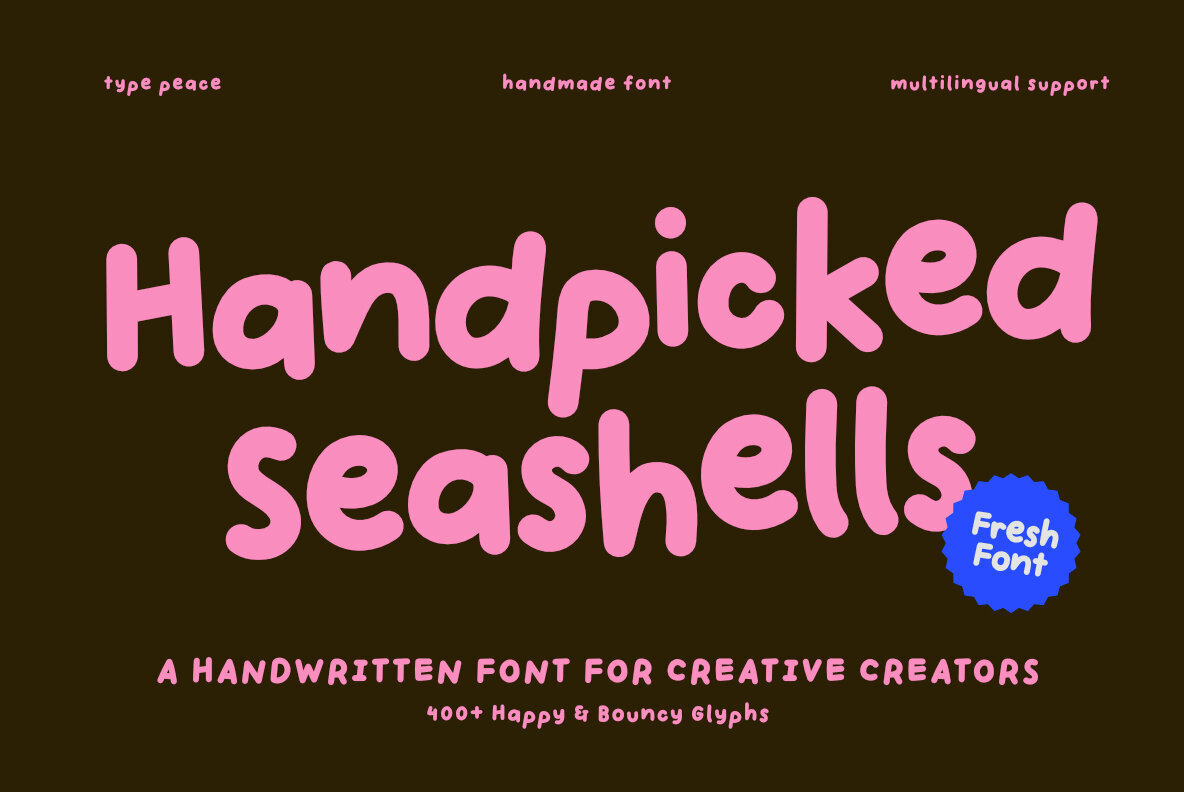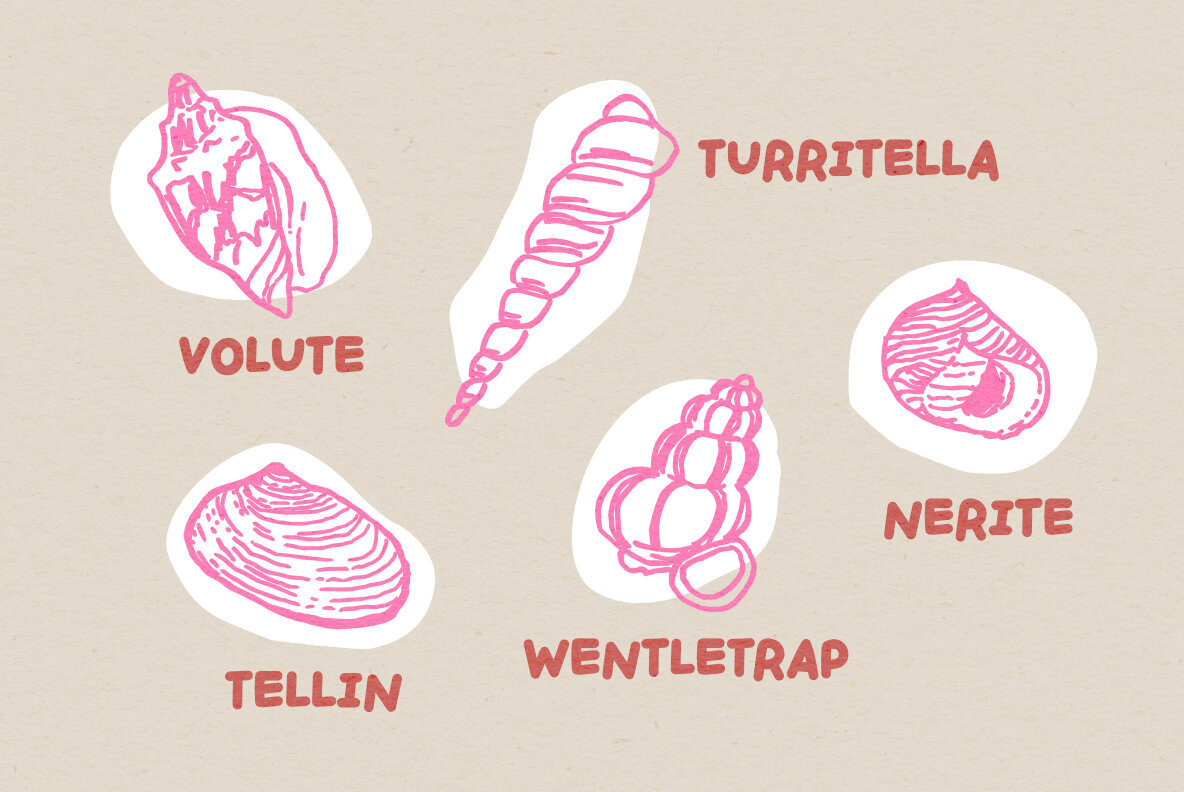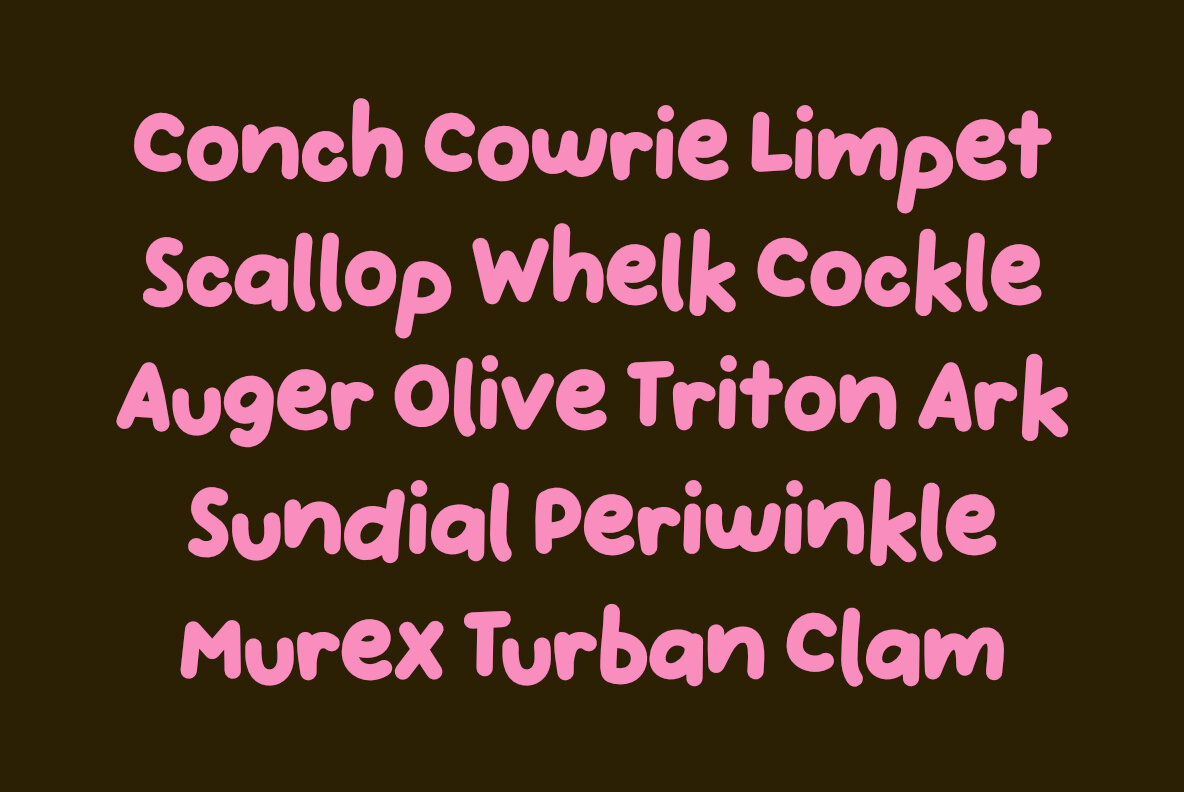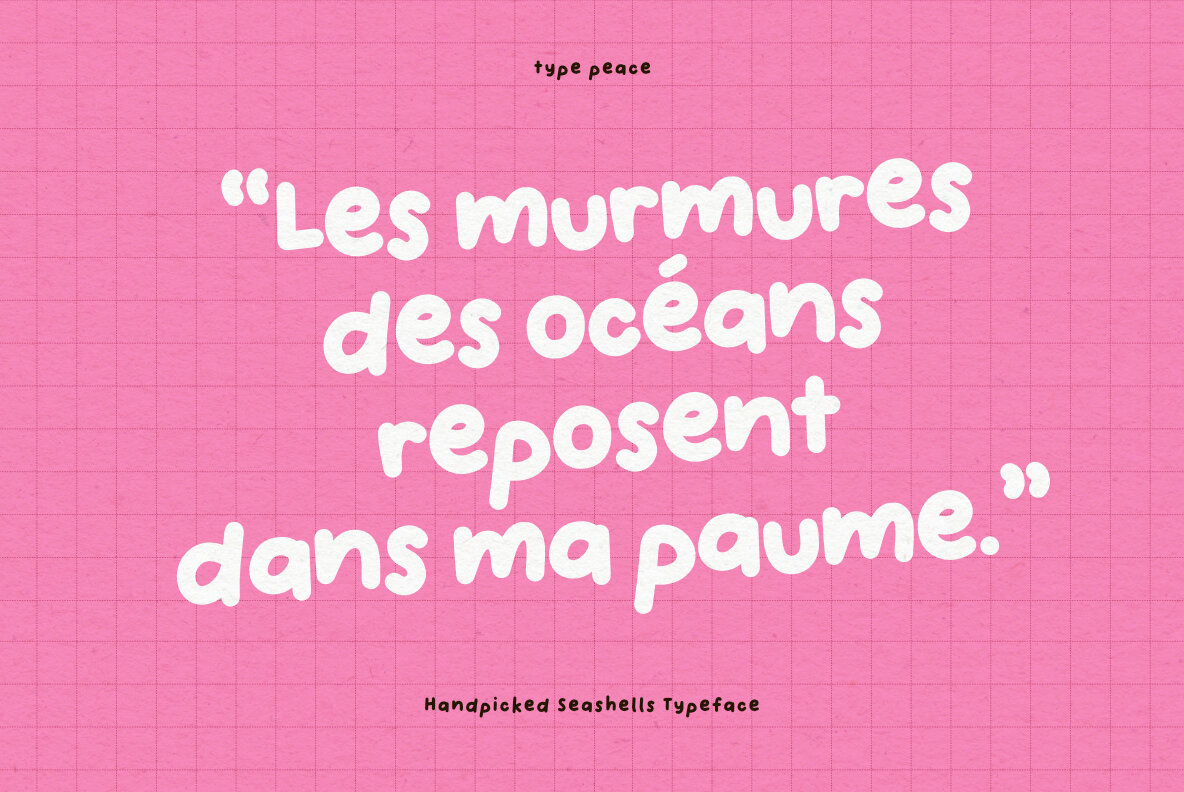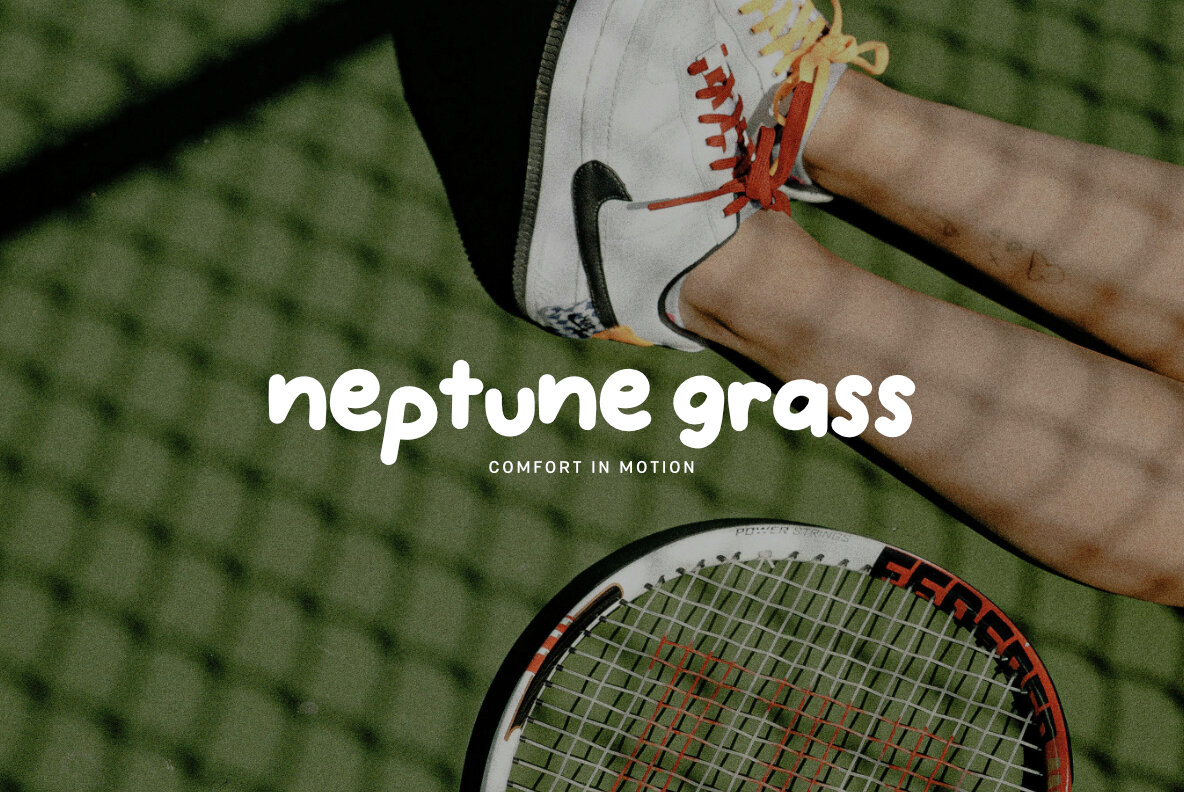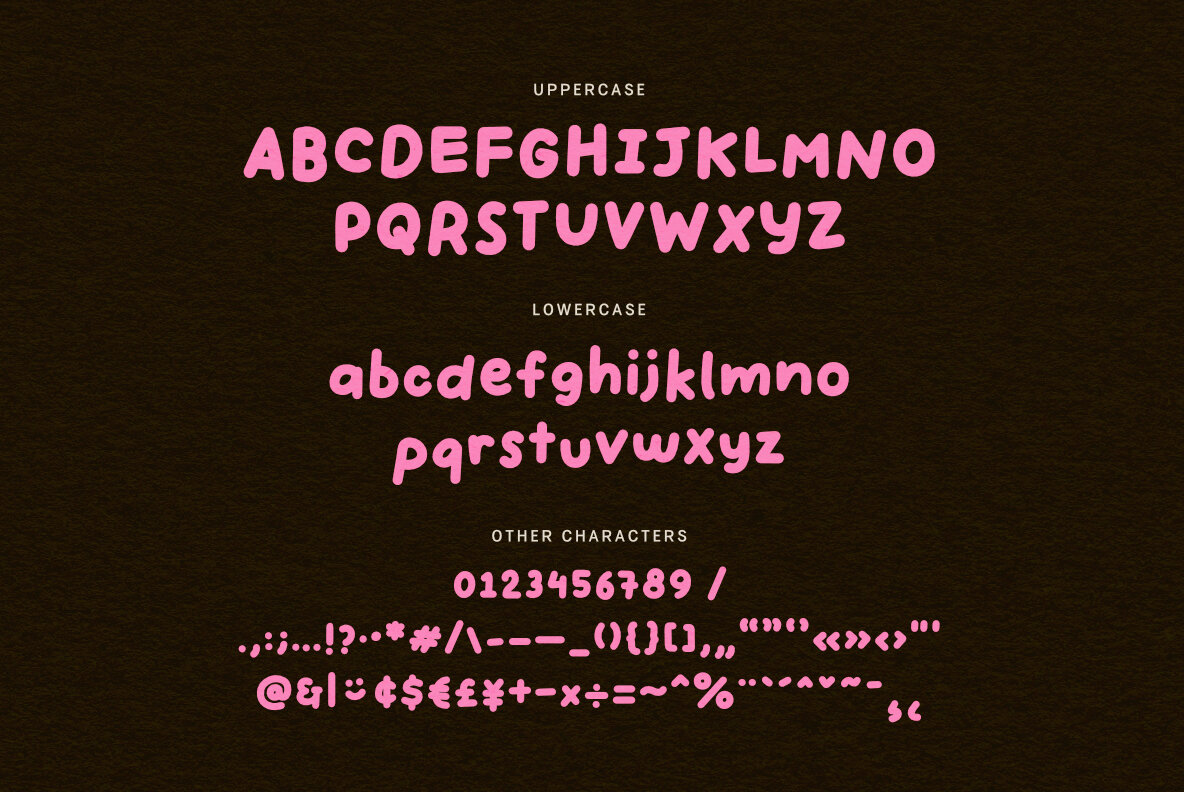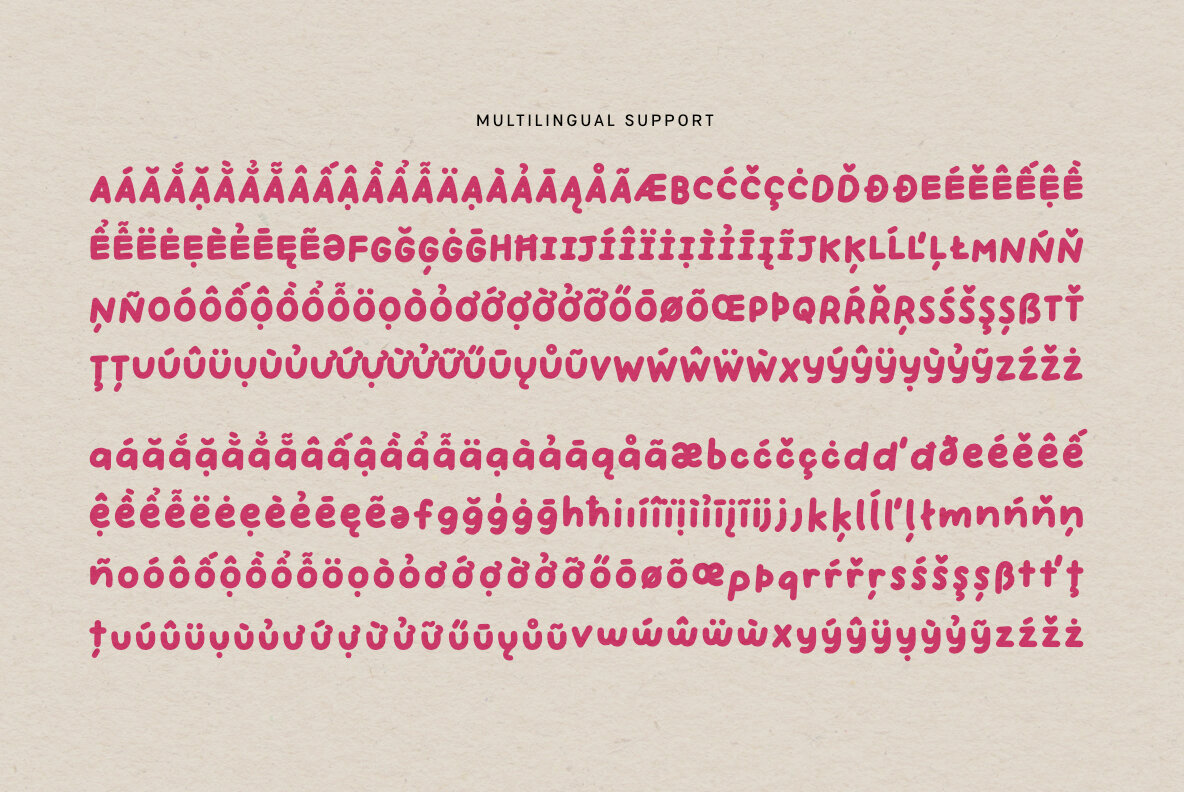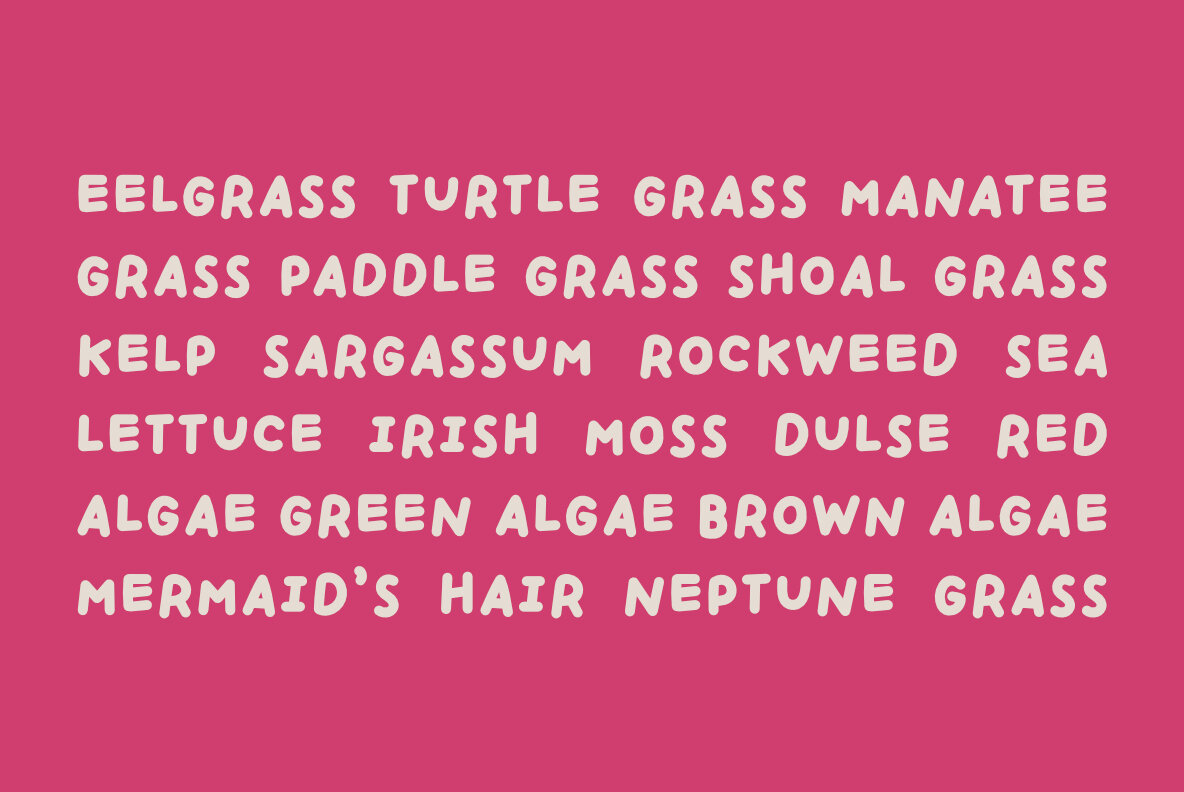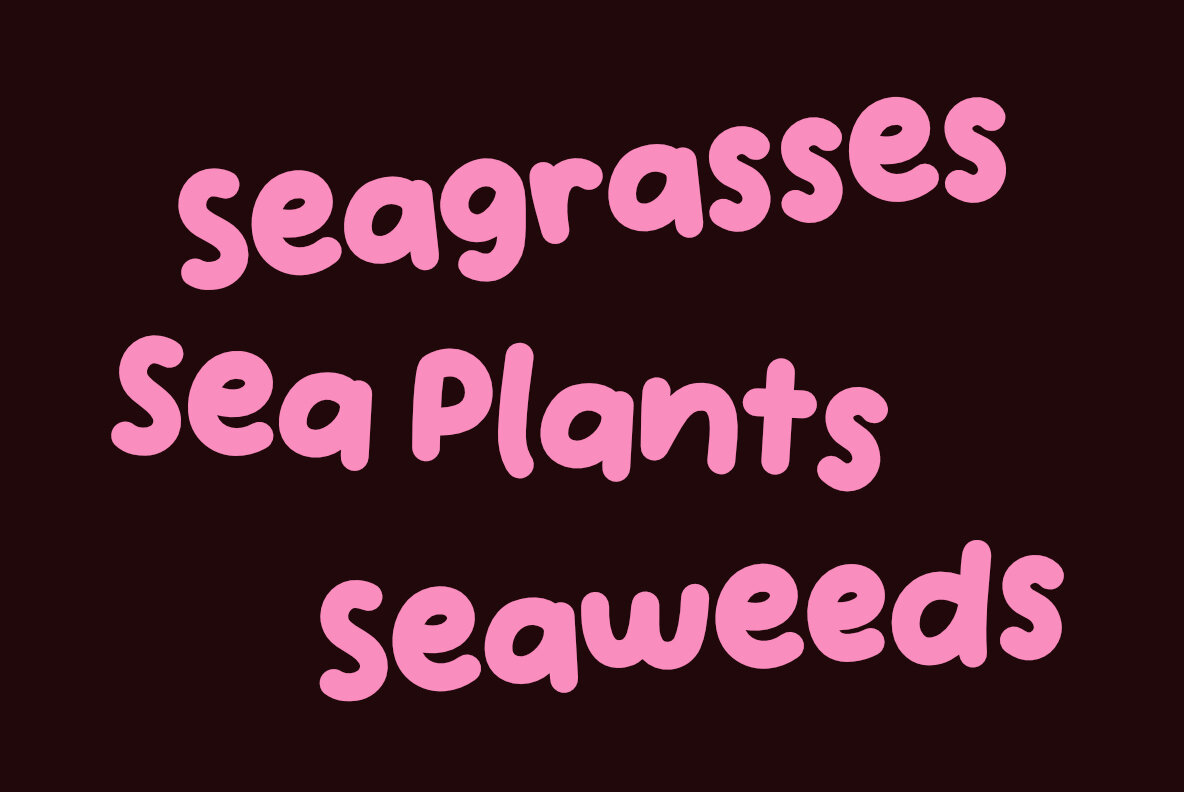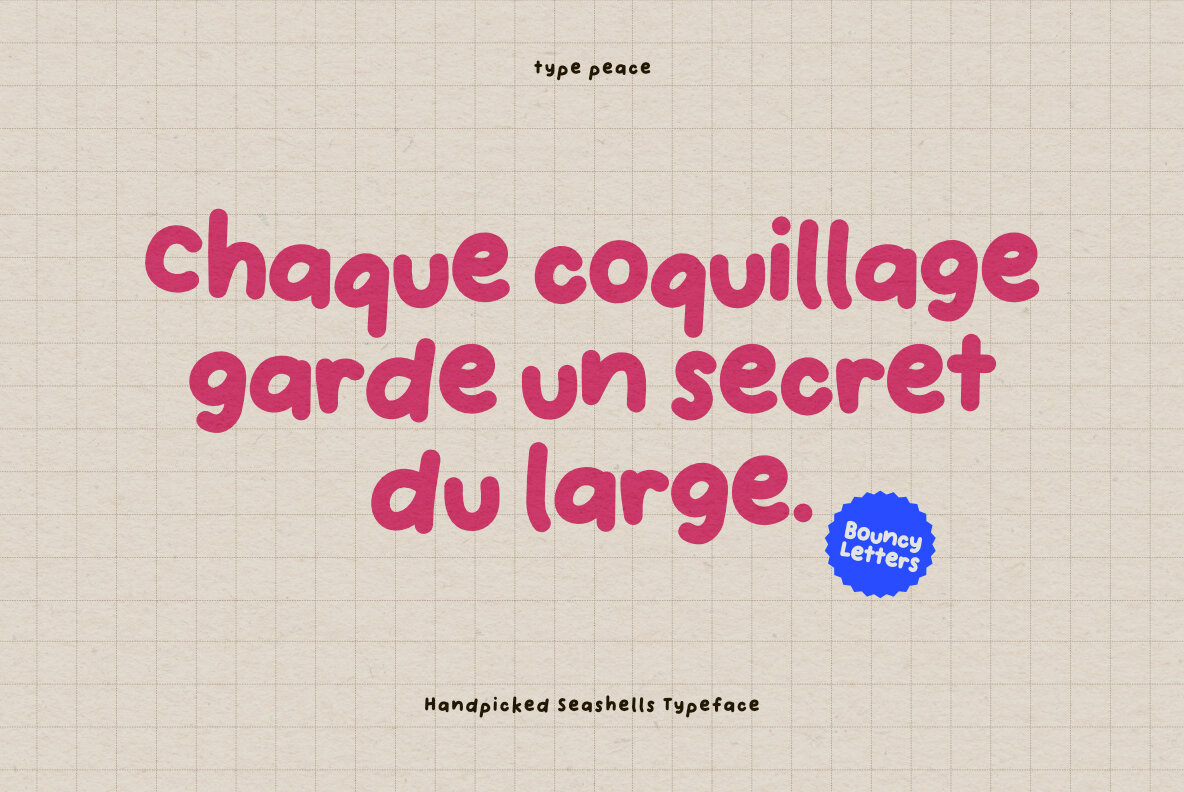
Handpicked Seashells Font
Handpicked Seashells Regular
Handpicked Seashells is a distinctive handwritten font that captures youthful dynamism and charm. Ideal for creating vibrant social media thumbnails, lively branding, and design projects with personality, this font delivers an engaging visual punch. With comprehensive multilingual support, Handpicked Seashells ensures your creative vision is accessible to a global audience. Seamlessly integrate its bold strokes into any project to make a lasting impression.Handpicked Seashells: Bold, Playful Handwriting